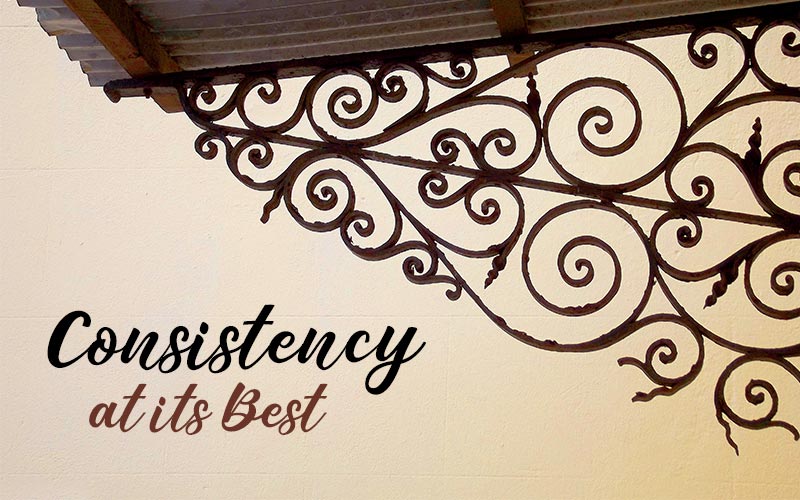
Fancy Font Freebie
Are you working on multiple design projects that require a fancy & playful look?
Searching for perfect fonts can be messy for a designer. Therefore, Pixelo has brought you a Fancy Font to create a beautiful & attractive design.
Carefully handpicked Fancy font is a Handwritten Script font that belongs to the “Senada” Typeface.
Use it for social media posts, banners, thumbnails, cards & invites, and more! You can also use this for multipurpose design combined with your most original ideas to make them come to life.